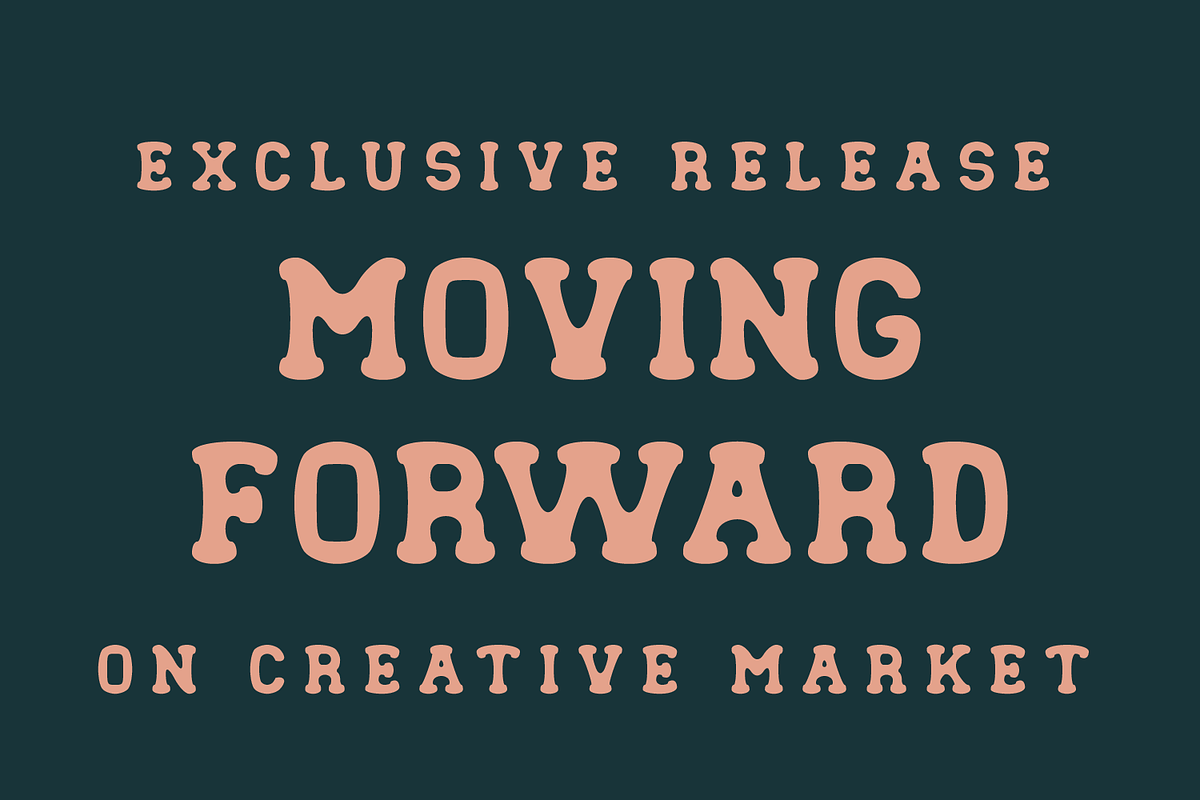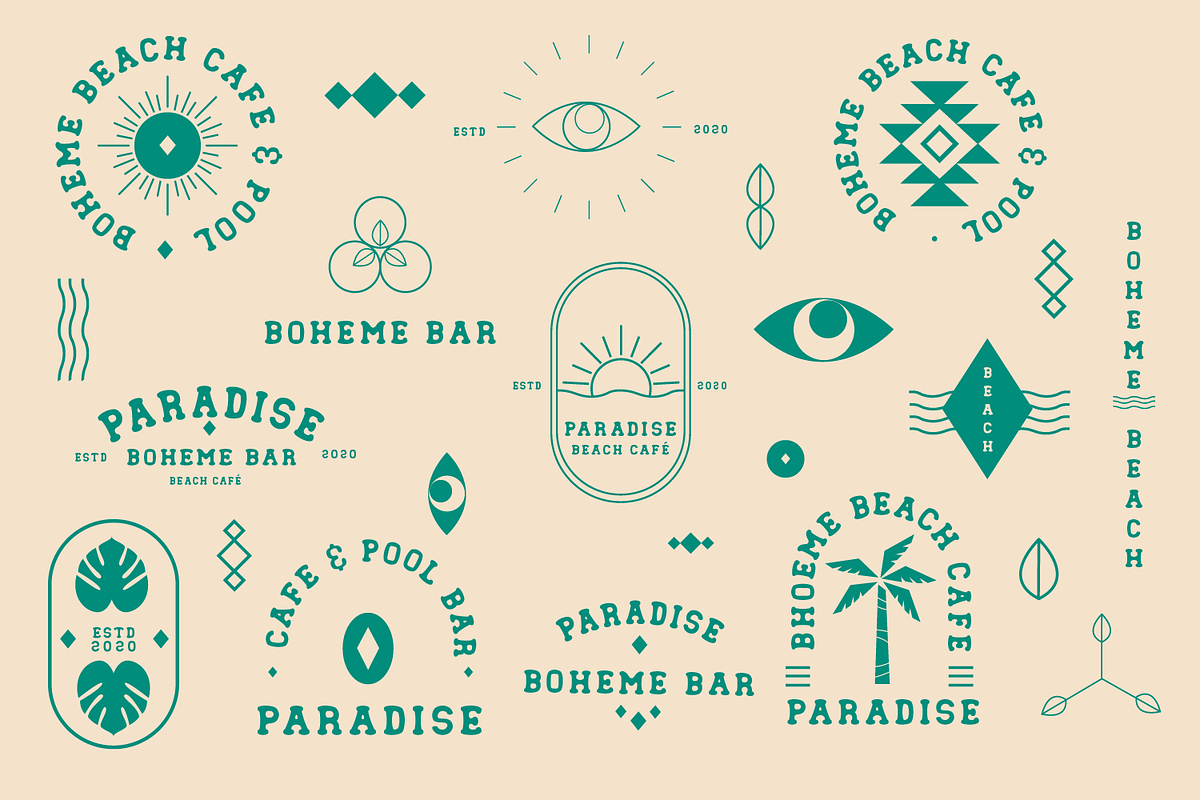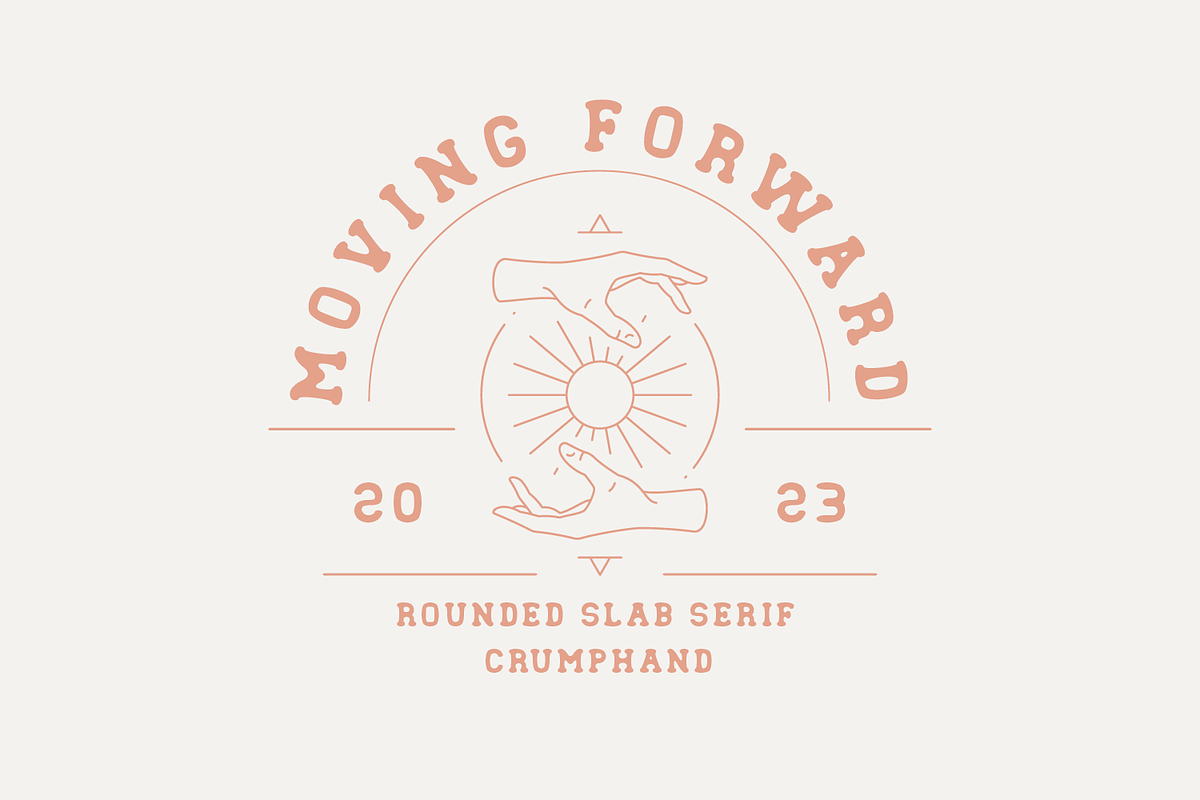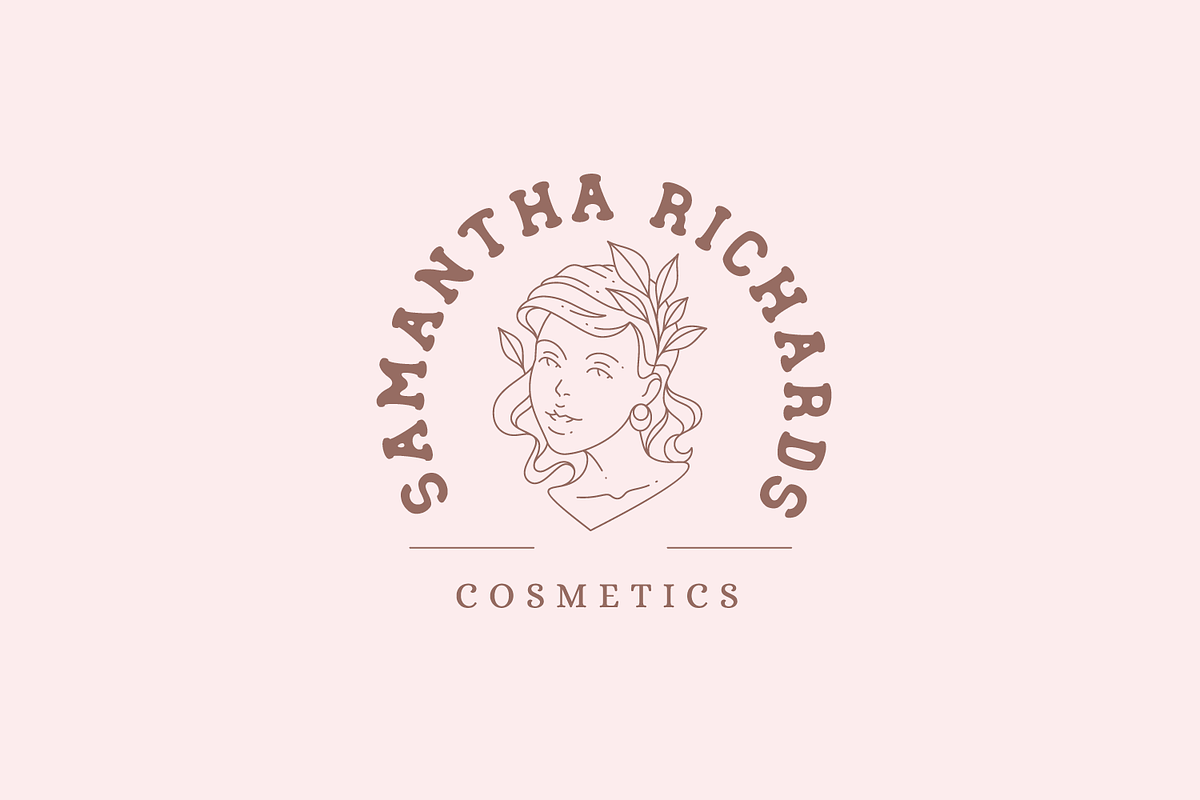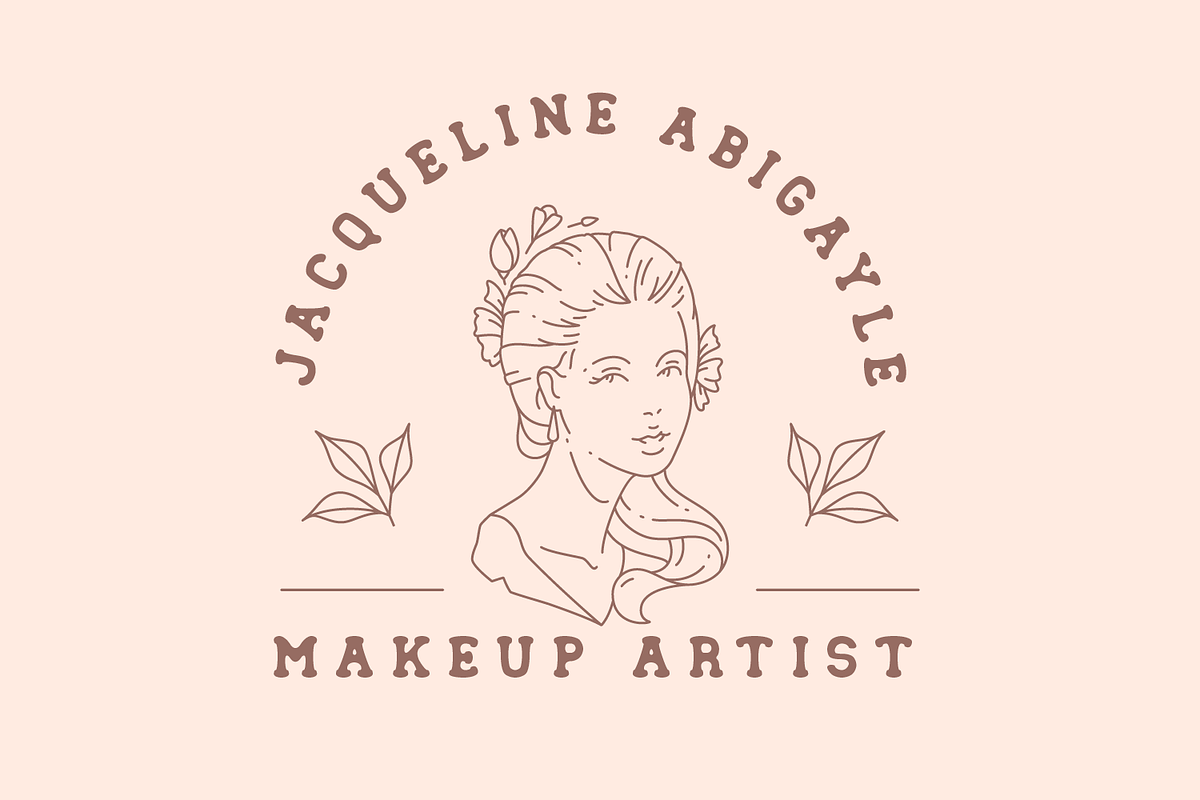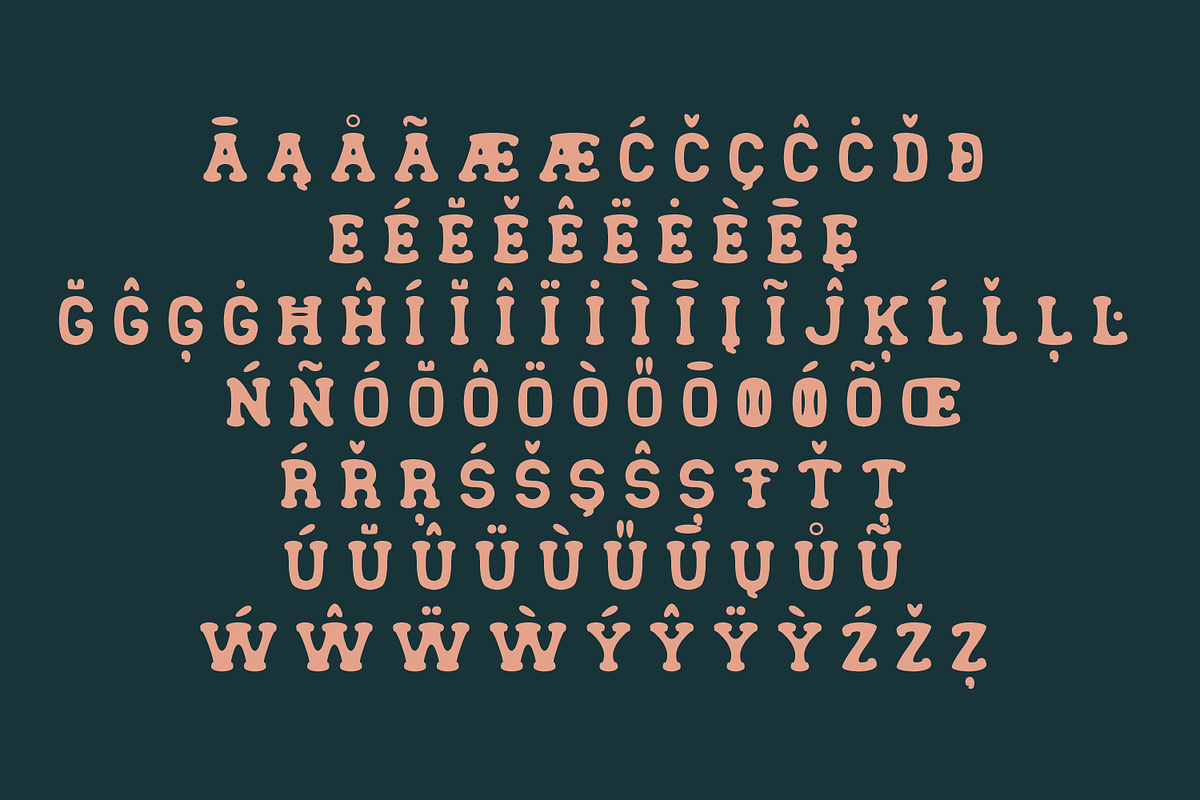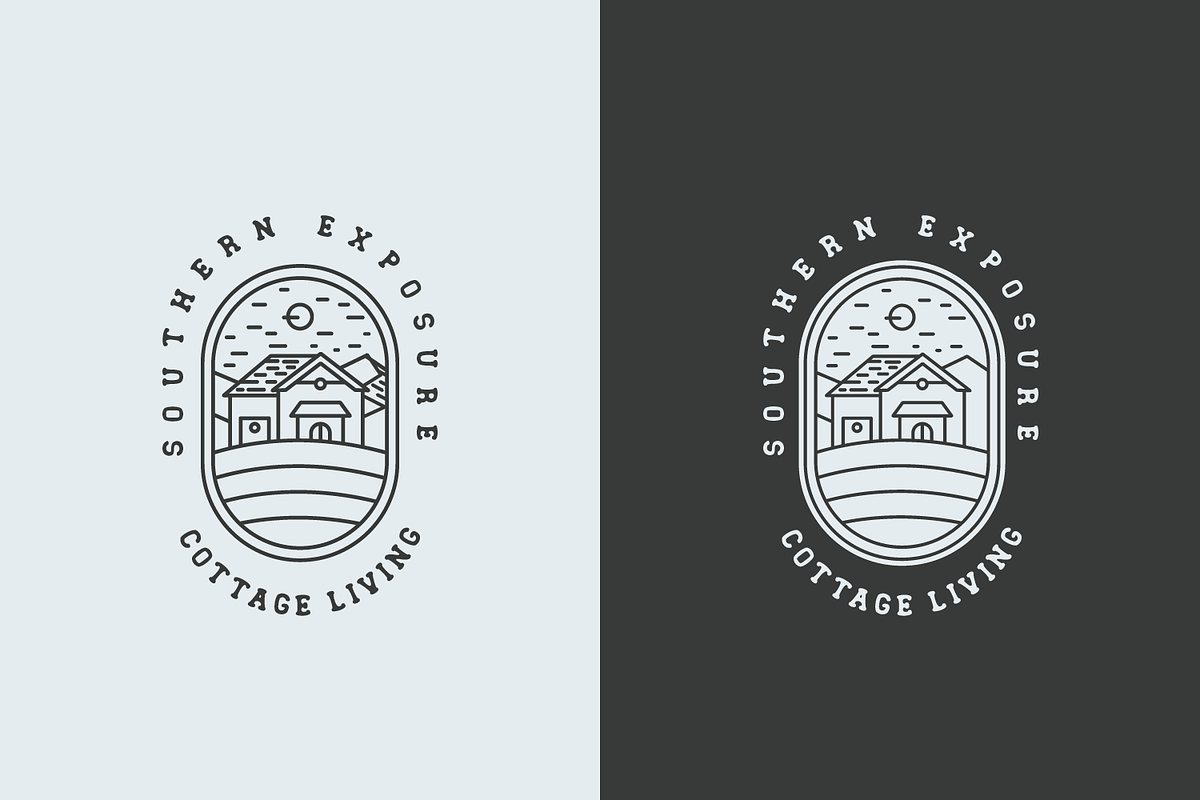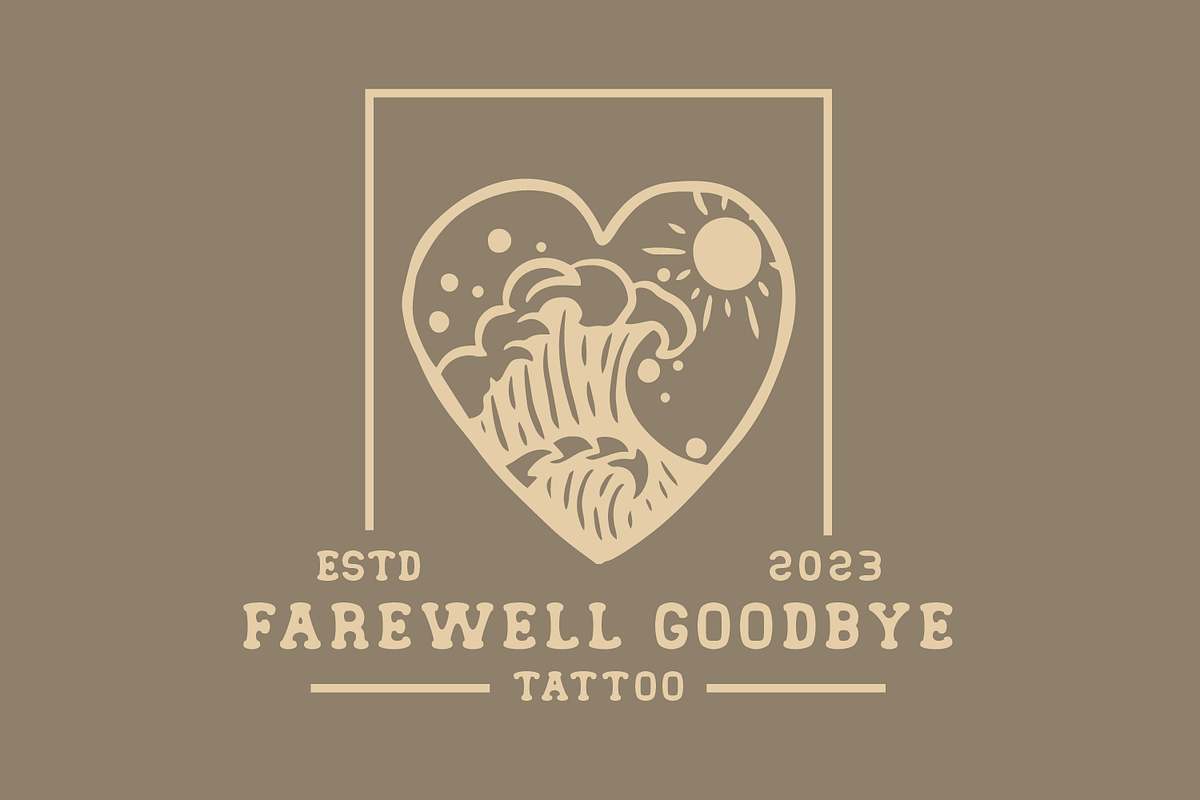
Moving Forward - Slab Serif Fonts
Introducing, Moving Forward Slab Serif Fonts. inspired by vintage and modern letterforms with alternate characters and full symbol sets. Moving Forward can using for posters, web headers, and display text of all kinds. good kerning and readable.